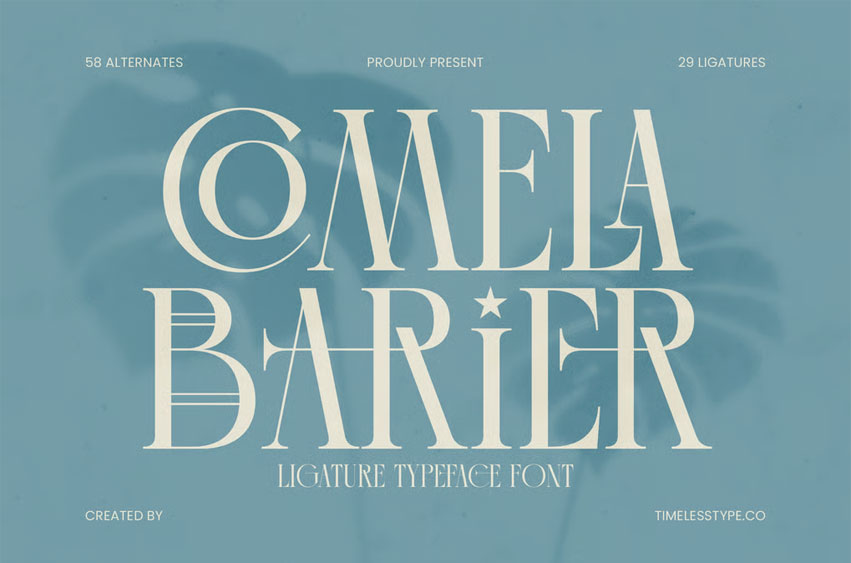
Comela Barier Font
Comela Barier Font is a stylish ligature display serif font that combines artistic sophistication with a modern editorial flair. With 58 alternates and 29 ligatures, this typeface delivers distinctive character and creative versatility — perfect for branding, luxury packaging, magazine covers, and statement logo designs.
Its graceful shapes and striking letterforms capture a sense of modern refinement inspired by classical beauty. Every curve of Comela Barier reflects confidence and artistry, making it an ideal choice for designers looking to bring elegance and uniqueness into their visual identity.